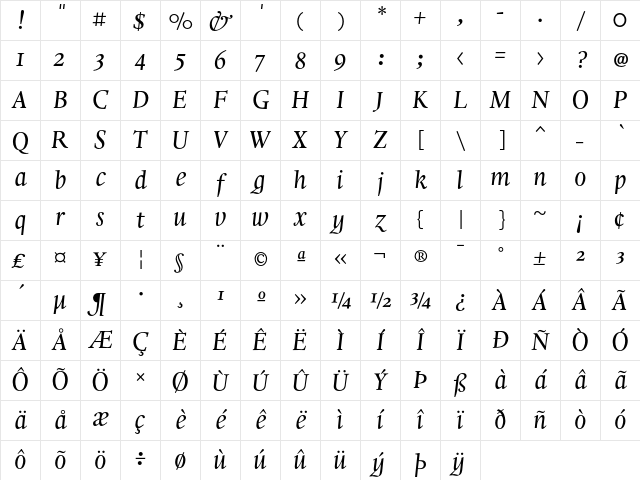
Whitenights LT Std It Regular
Foundry: Linotype Library GmbH
Designer: Lars Berquist
Design Context for Whitenights LT Std It
Whitenights LT Std It is a composed and adaptable typeface that performs quietly and consistently across a wide range of design contexts. Its slender proportions lend an understated elegance to any composition.